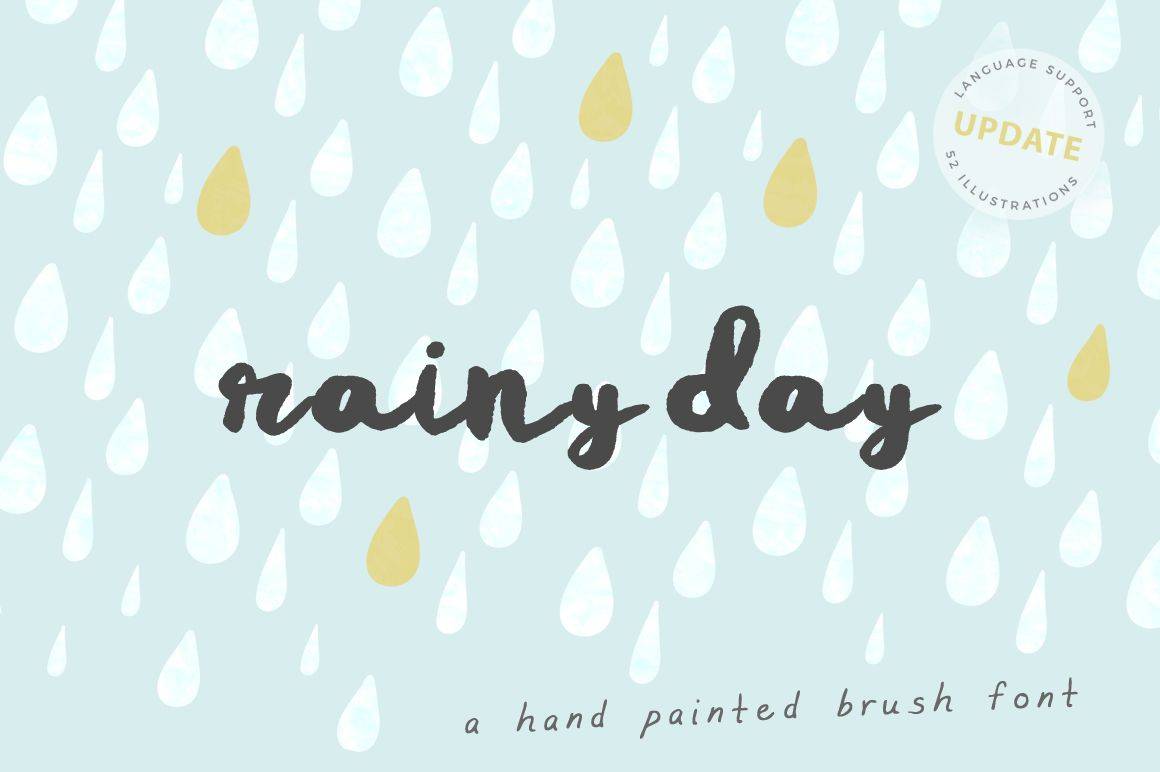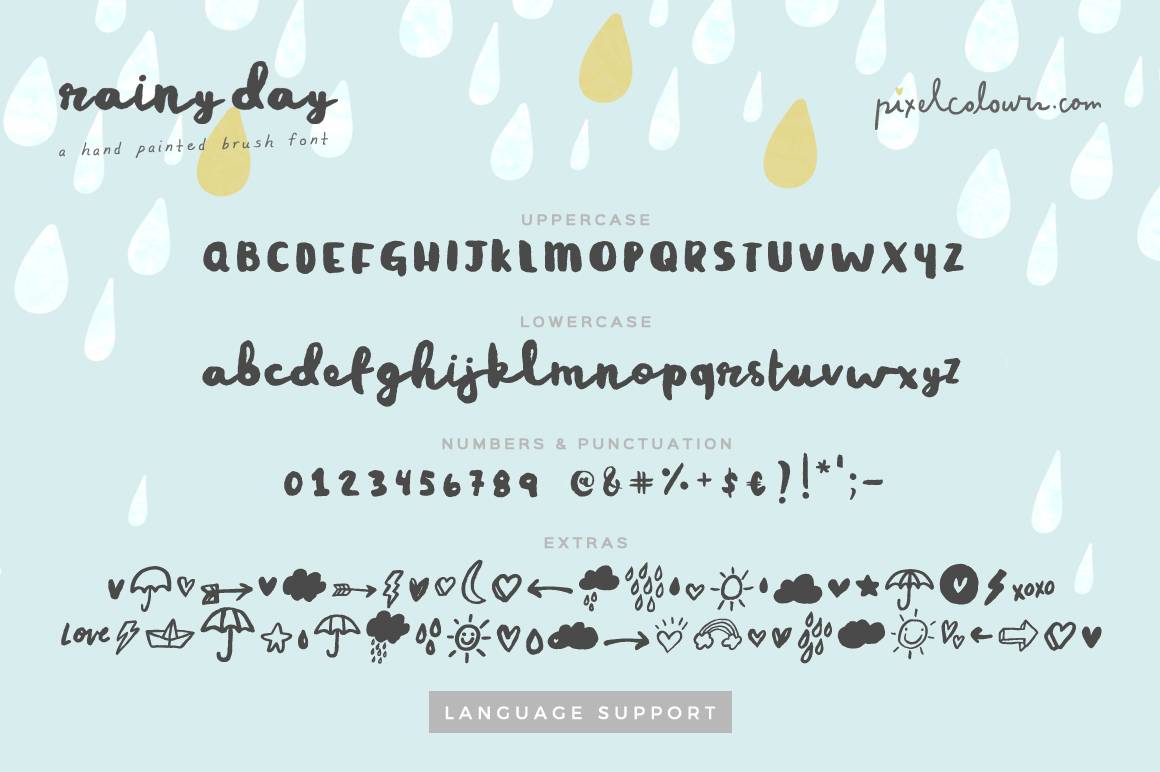
Rainy Day Brush Font
Rainy Day Brush free font is a beautiful hand-painted typeface that looks great for any project with an informal look. It has a playful yet fun appearance that is suitable for childrenโ€™s books, book cover, poster, and logotype as well. This free font includes TTF and OTF files that you can use for personal use.